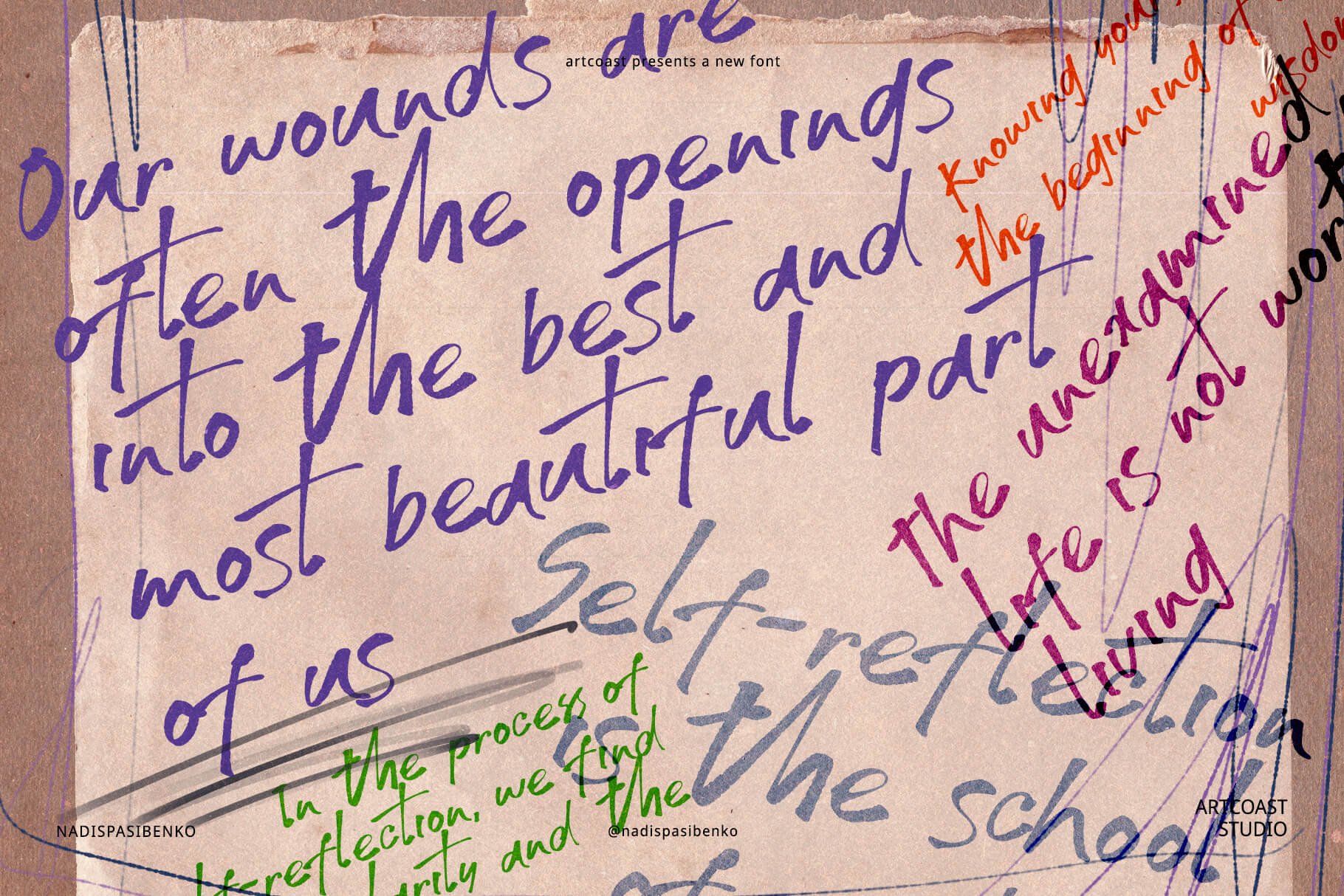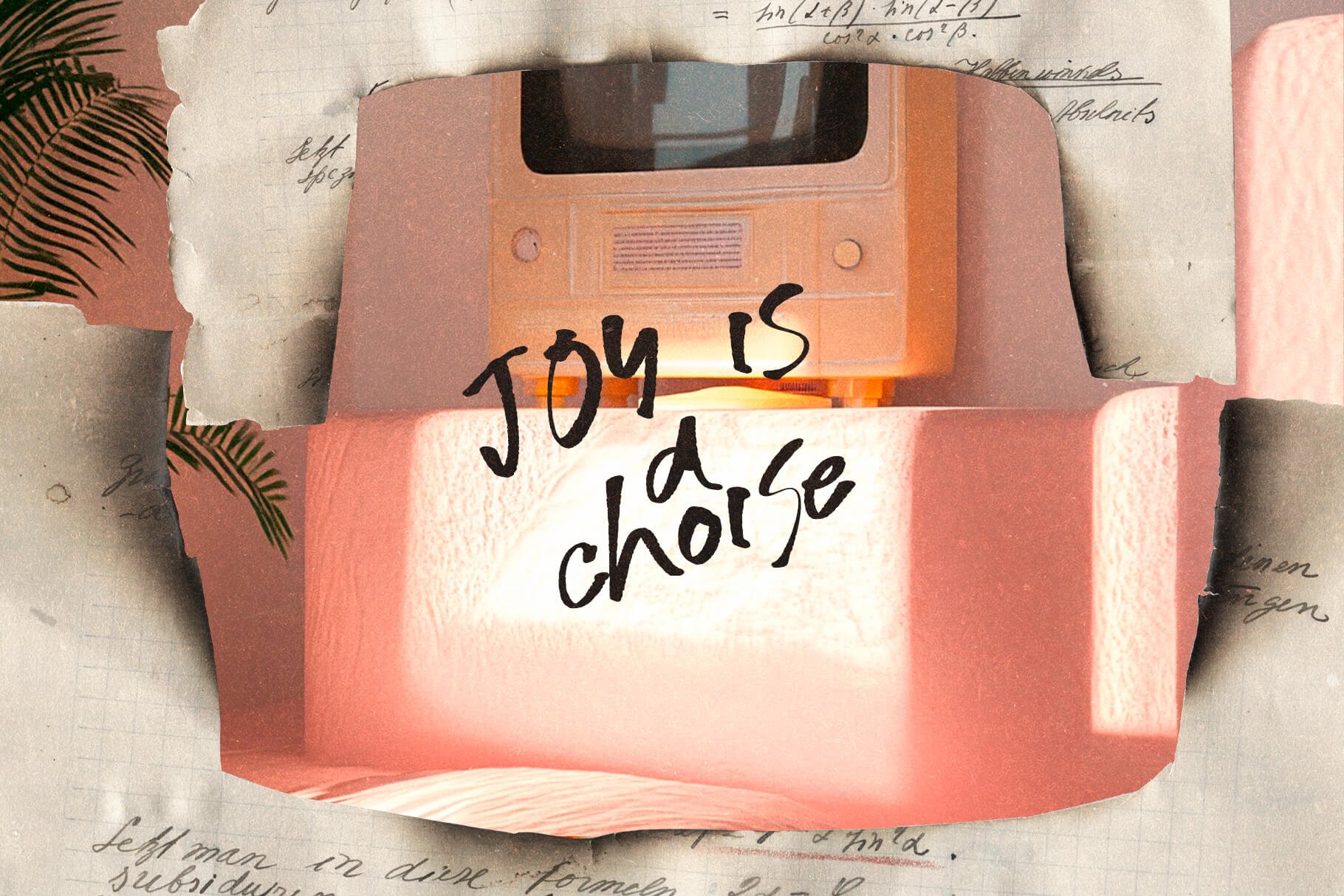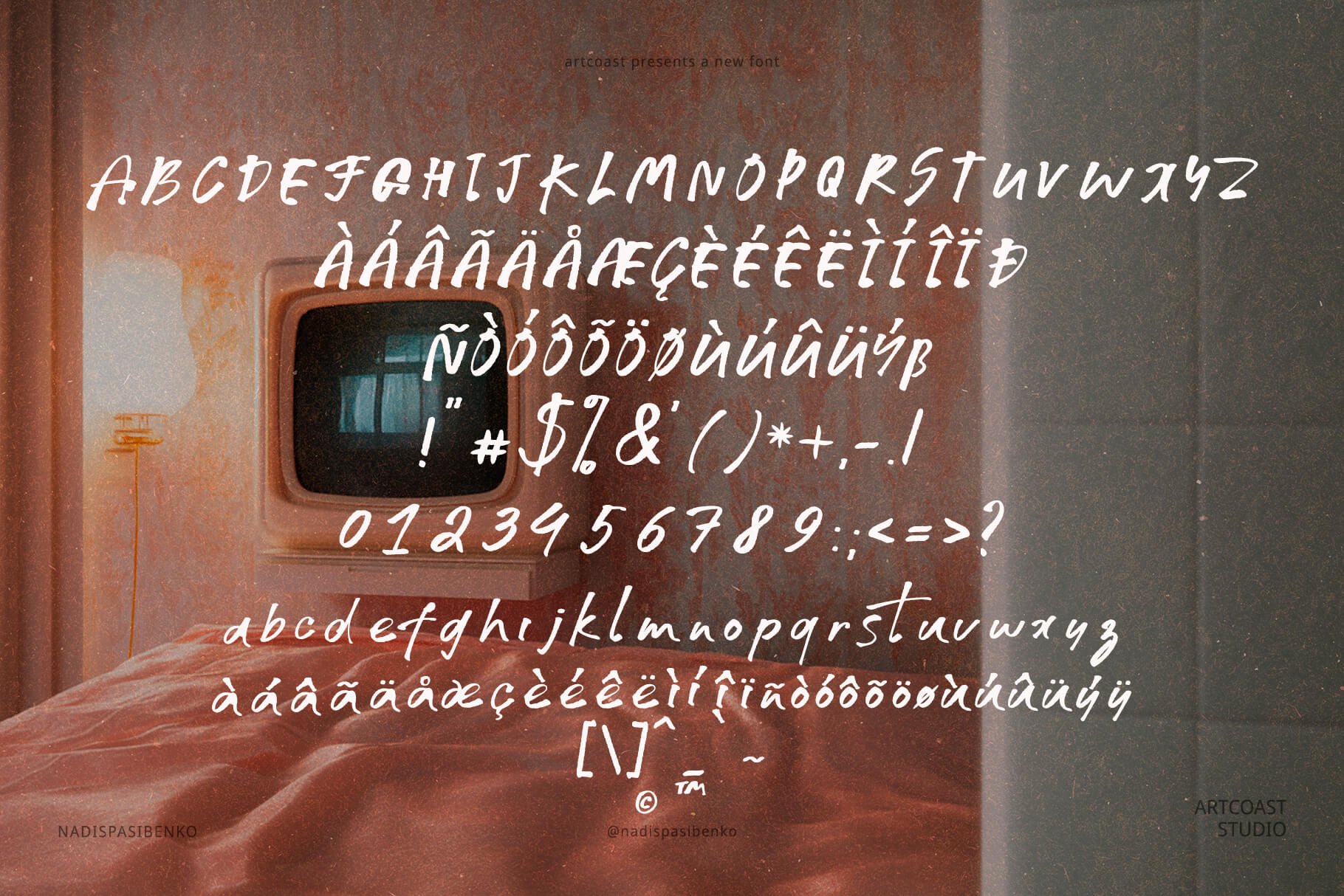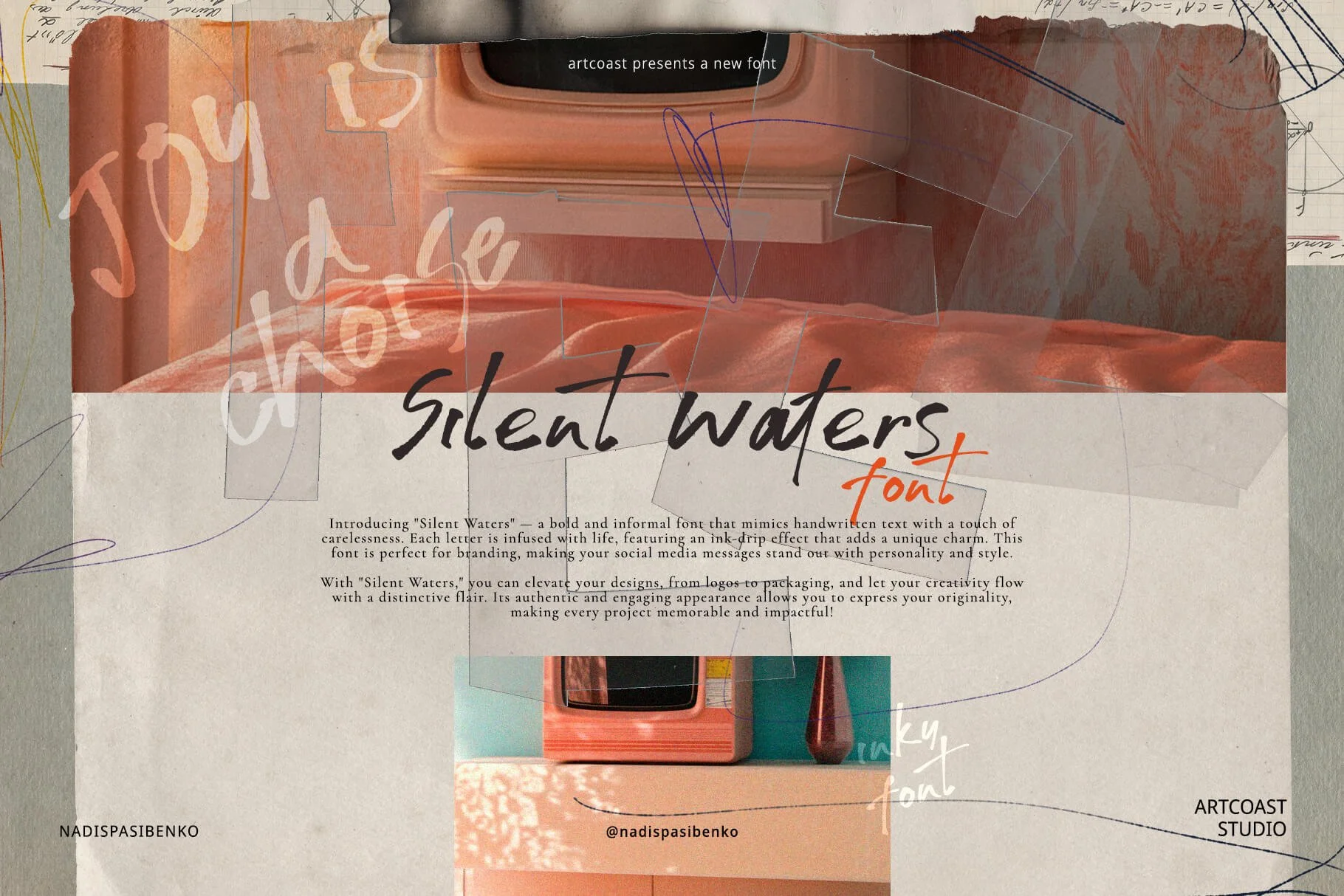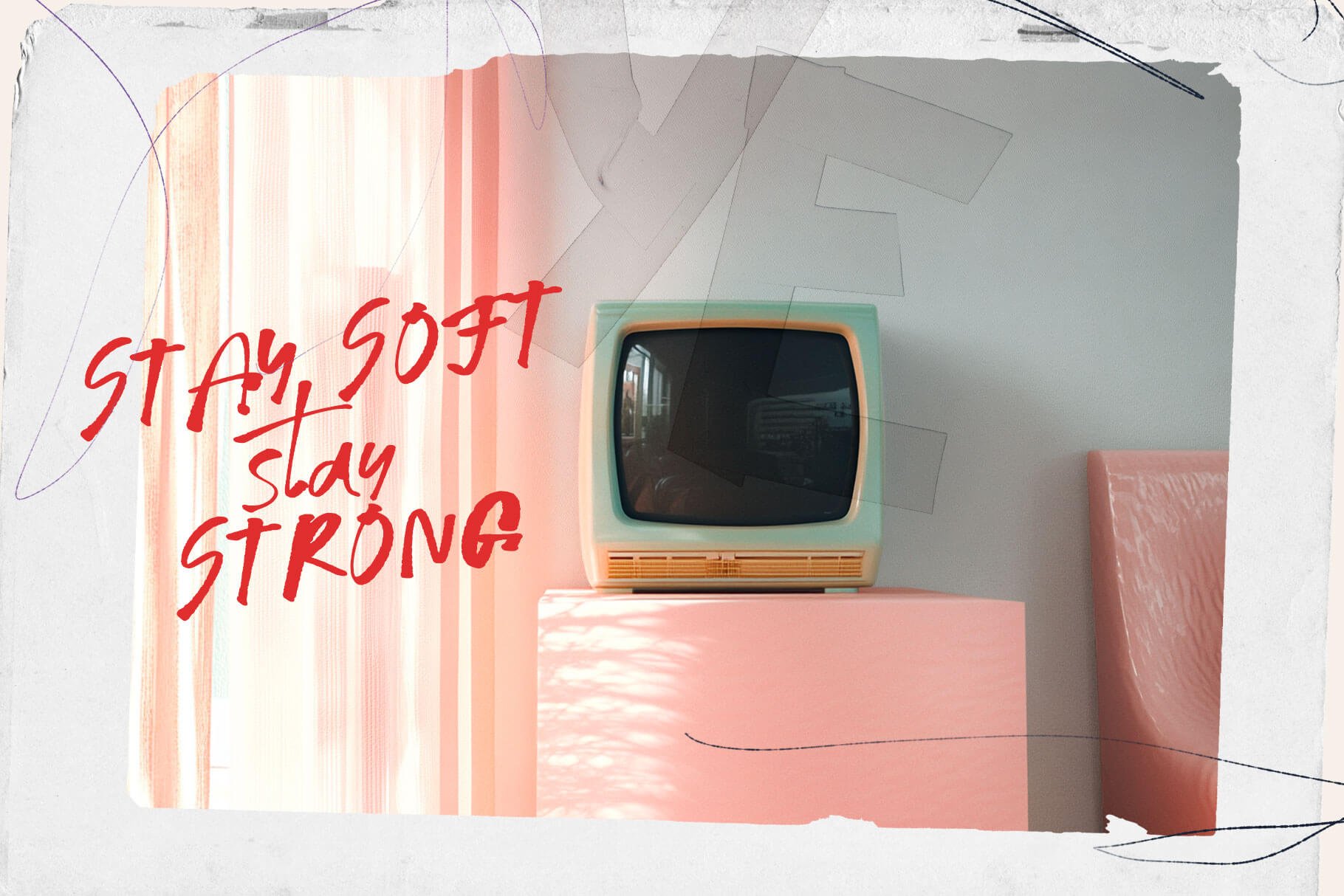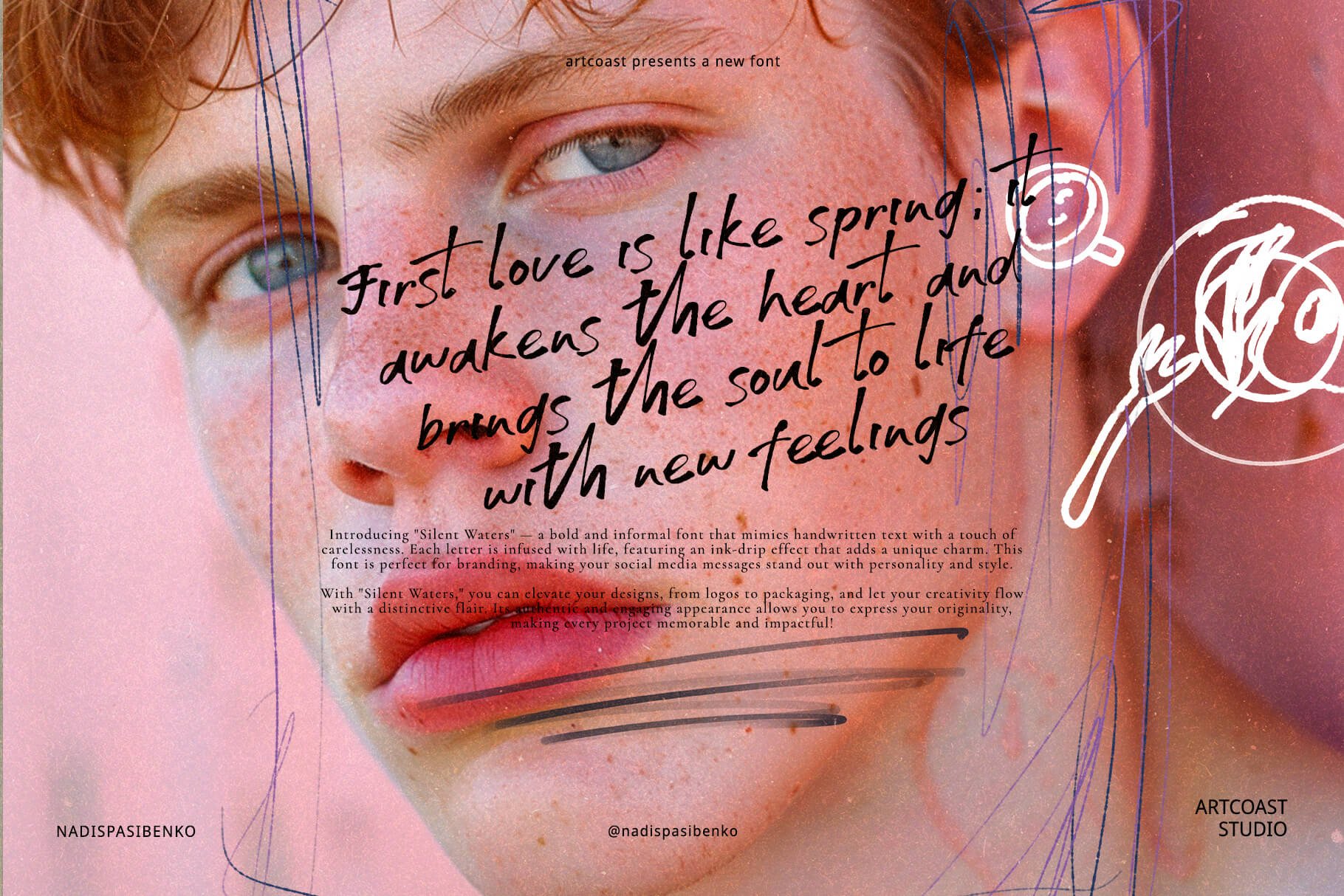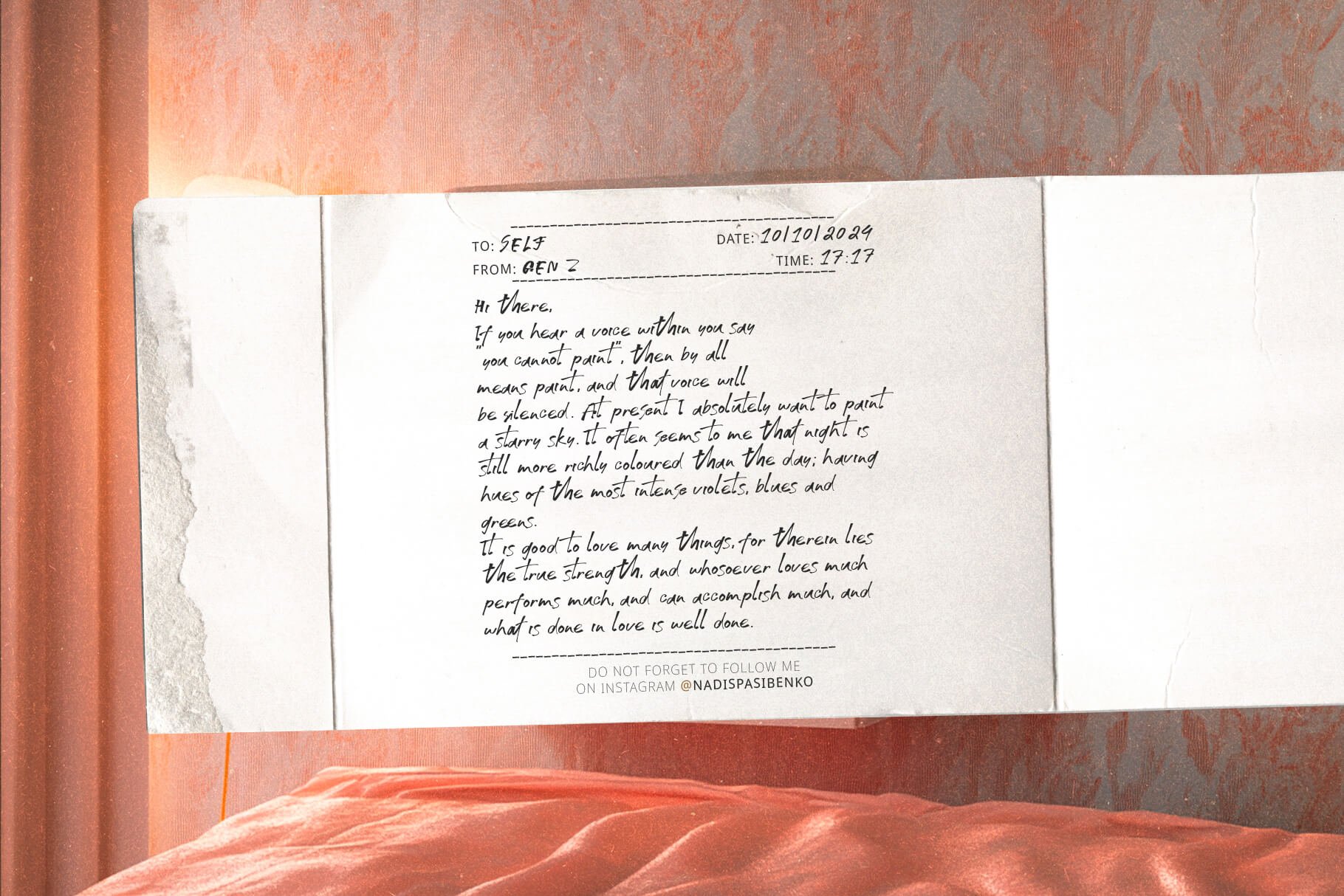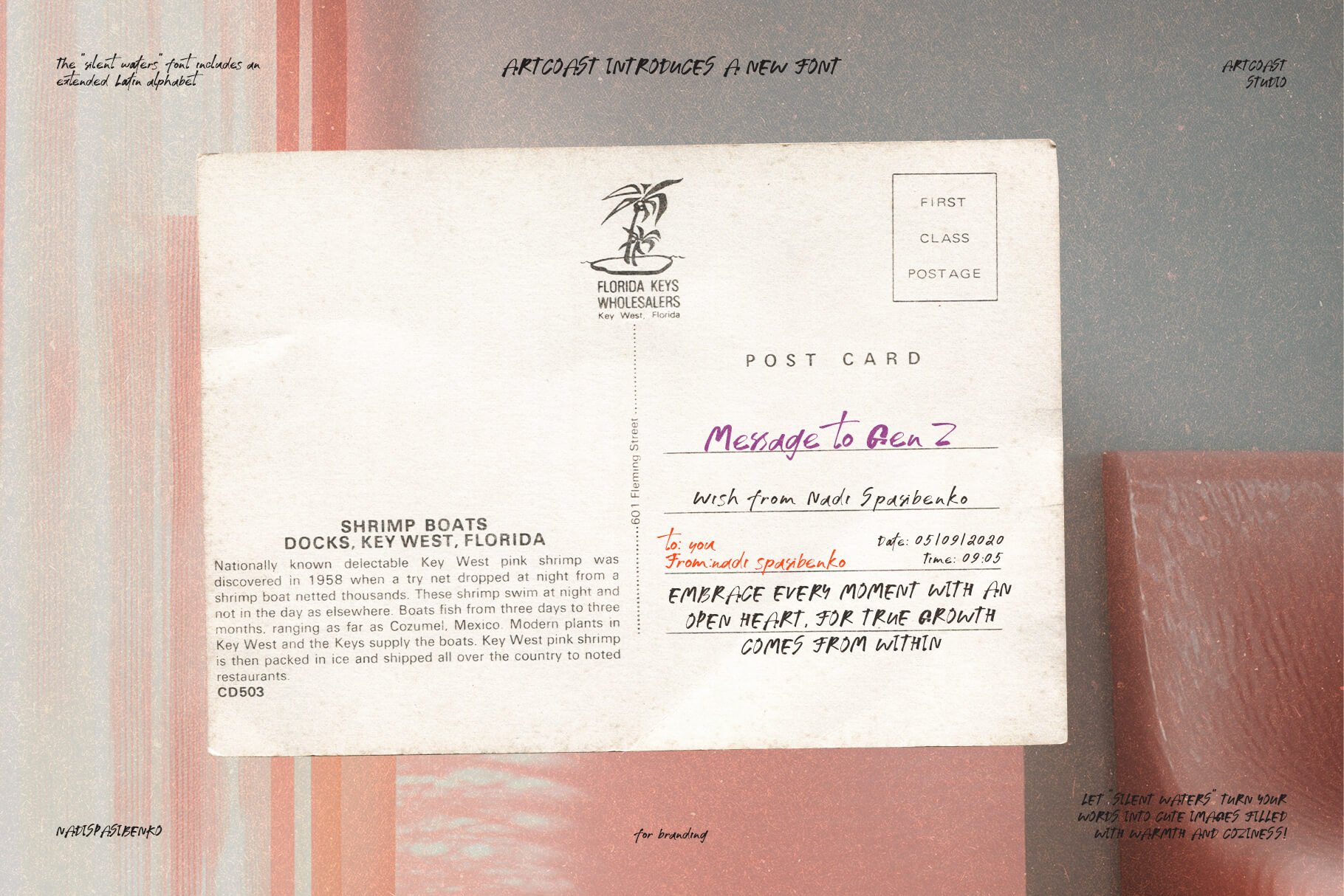
Silent Waters Bold Inky Font: Effortlessly Creative Script
Meet Silent Waters, a bold and playful handwritten font that brings a touch of effortless charm to your designs. With its unique ink-drip effect, each letter feels alive, adding a creative, free-spirited vibe. Perfect for branding, this font will make your social media posts, logos, and packaging truly stand out with personality and flair.
Silent Waters enhances every project with its authentic, artistic style, allowing you to showcase your originality. Whether it's for logos, packaging, or social media, this font ensures your work leaves a lasting impression.